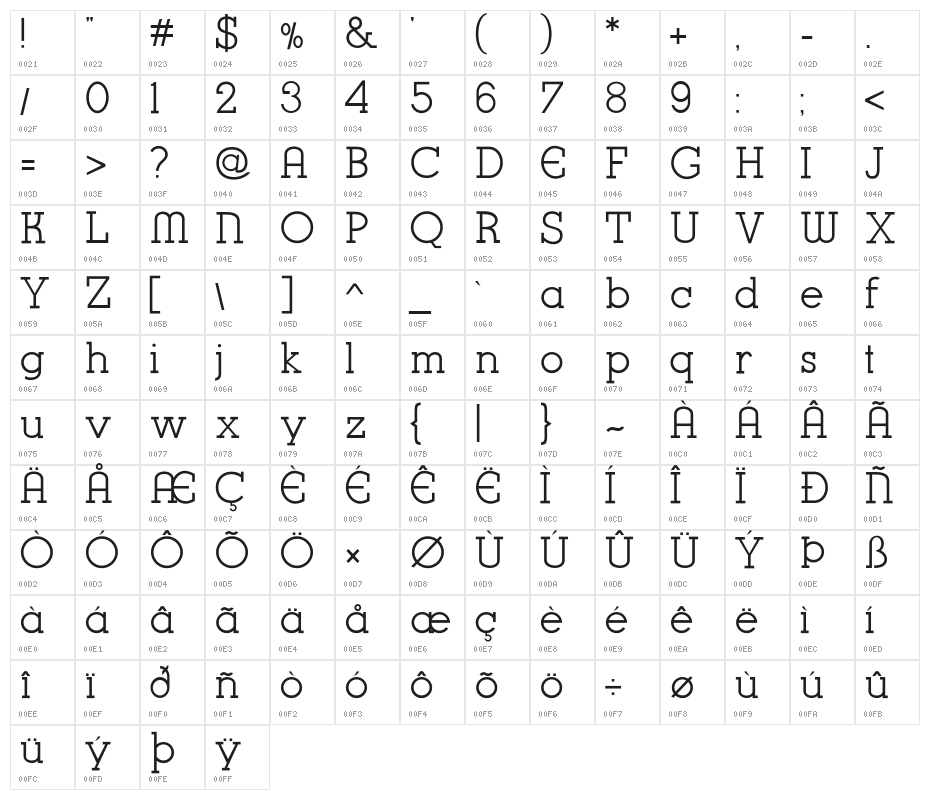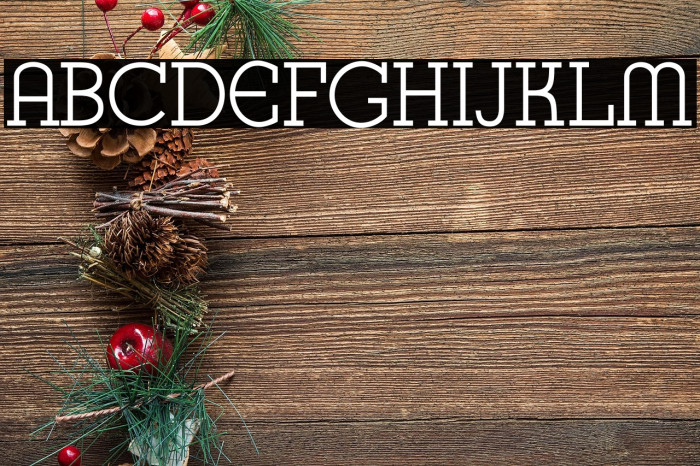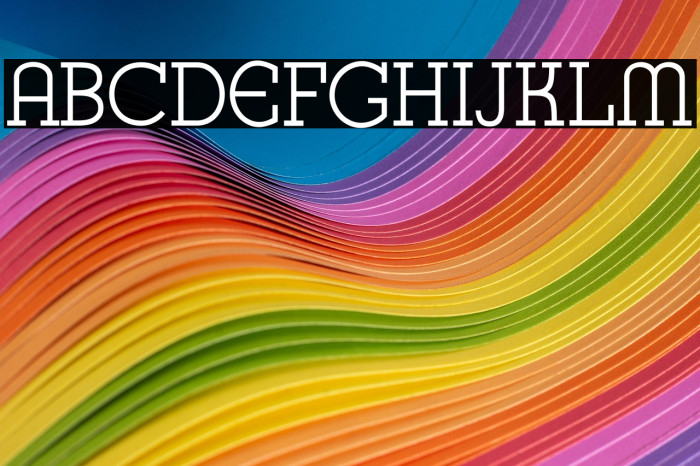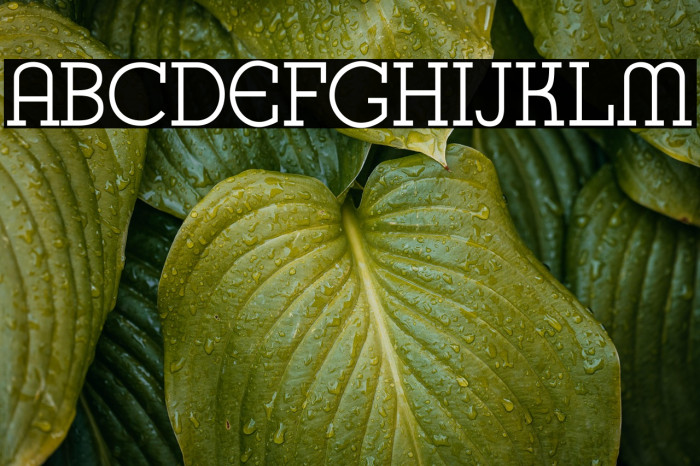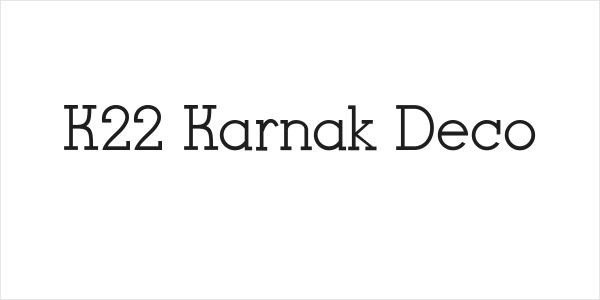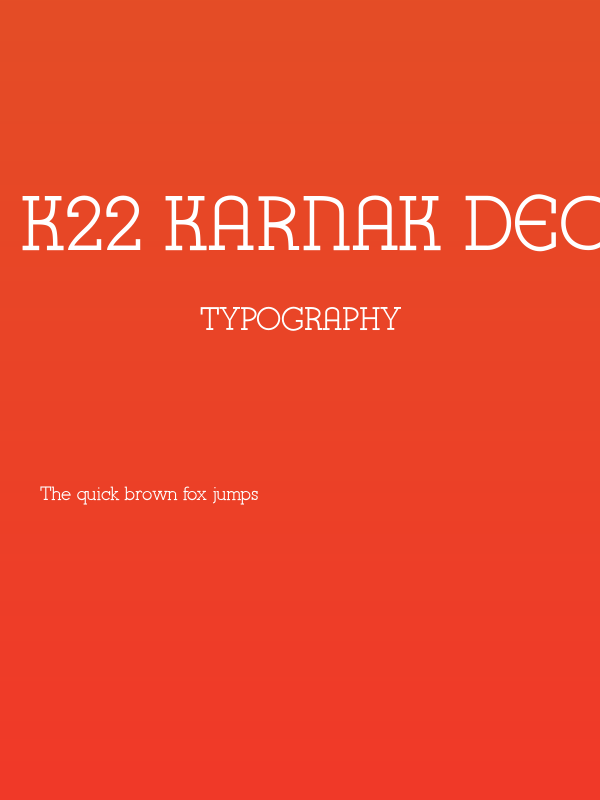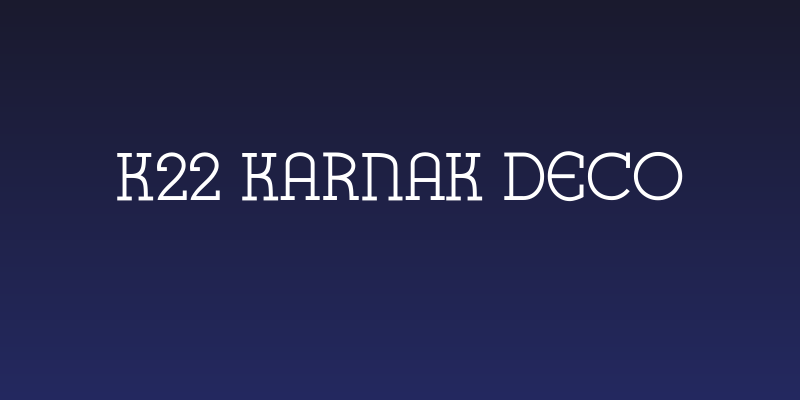
K22 Karnak Deco Font
K22 Karnak Deco Description
This font features a distinctive geometric style with clean, rounded edges and a modern aesthetic. The uppercase letters are bold and structured, while the lowercase letters maintain a consistent flow with slightly softer curves. The numerals are clear and easy to read, matching the overall geometric theme. Special characters are well-integrated, maintaining the font's cohesive look. The design is both functional and stylish, making it suitable for a variety of applications.
| Proposed Projects | Ideal for branding, advertising, and editorial design projects where a modern and clean look is desired. |